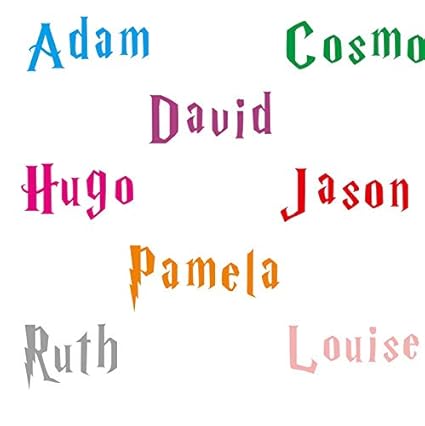
Harry Potter Font Name
The first and arguably most famous Harry Potter font is the font used on the covers of the books This font is actually relatively old;.
In case you want to make your own Harry Potter signs, here are the two best Harry Potter fonts that I found Parry Hotter – this is the font I used to make the signs like Invisible Cloaks and the third floor out of bounds sign Lumos – this is the font from the Honeyduke’s signs. Unfortunately, the only fonts you can use are the fonts that Google provides If you click on the Font dropdown, you have the option to "Add Fonts" at the bottom of the list You might be able to find a font that resembles your Harry Potter font. Well you're in luck, because here they come There are 1157 harry potter font svg for sale on Etsy, and they cost $248 on average The most common harry potter font svg material is cotton The most popular color?.
Nov 25, 19 Explore 💜Fangirl༺'s board "Harry potter font" on See more ideas about harry potter, harry potter drawings. So, if you have a Harry Potter fan, you might want to check out the Harry P Font on DaFontcom The Harry P Font is a TrueType Font {TrueType fonts can be scaled to any size and are clear and readable in all sizes They can be sent to any printer or other output device that is supported by Windows} Often times when I see a pin on or visit a blog and I see a pretty font that I like, I try to find one similar to it DaFontcom is a really good source for free fonts Of course. Parseltongue,” an original font inspired by JK Rowling’s Harry Potter books The serpentine aspects of the font and the font’s title have to do with the second book of the series, _The Chamber of Secrets_.
For the film “The Prisoner of Azkaban”, Harry, Ron and Hermione wrote. Harry P by GemFonts A font based on the Harry Potter title logo CLICK HERE TO DOWNLOAD!. If you're a Harry Potter fan, have a Harry Potter themed classroom, or just want to infuse a little magic in your classroom, these desk plates will be perfect!.